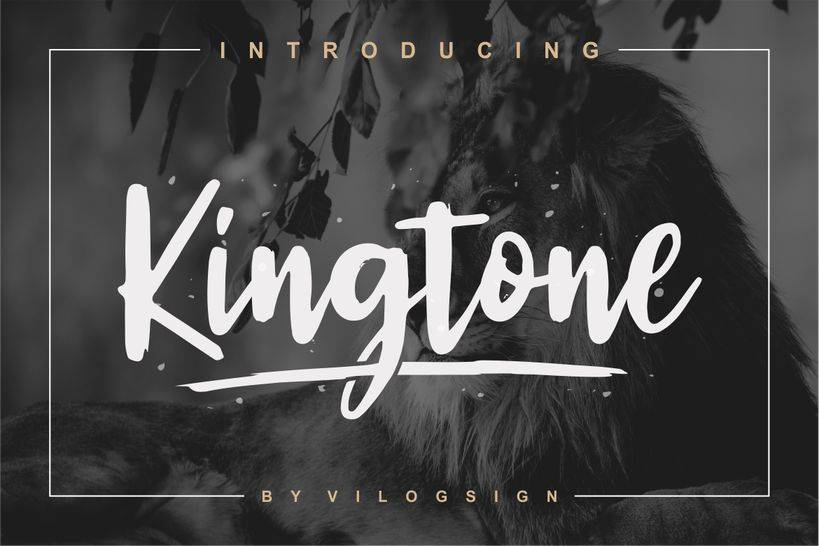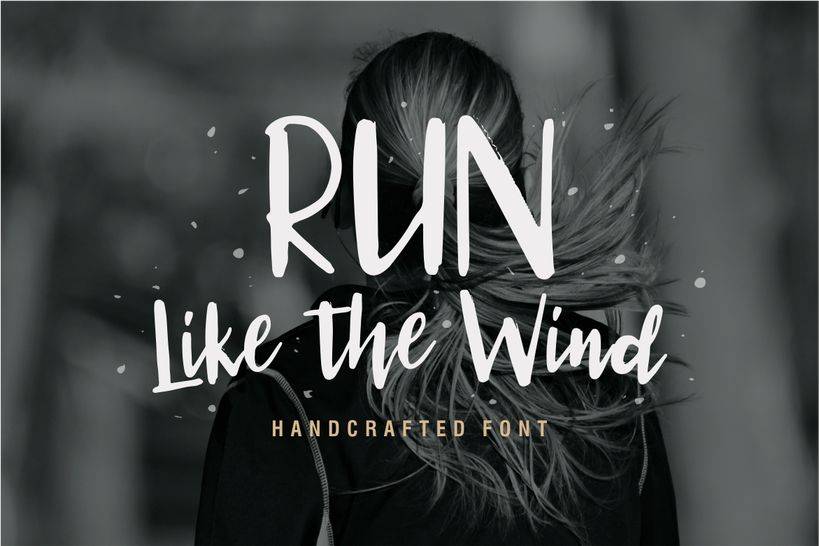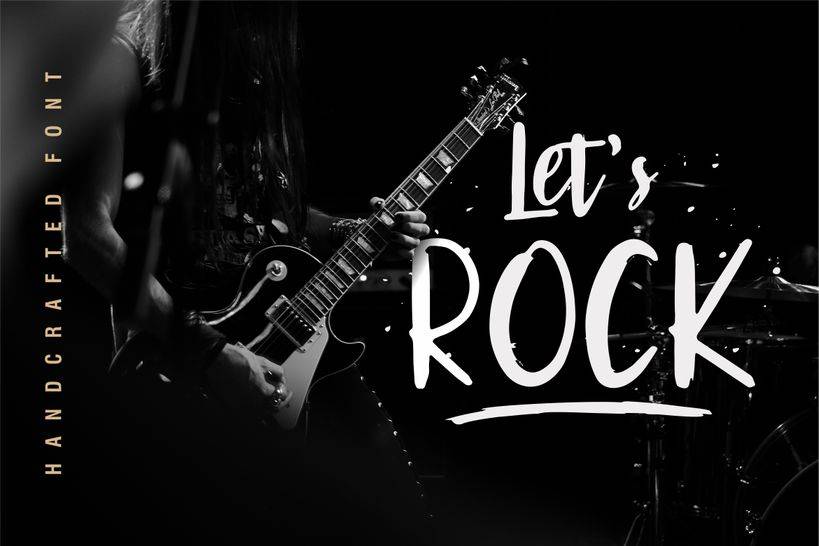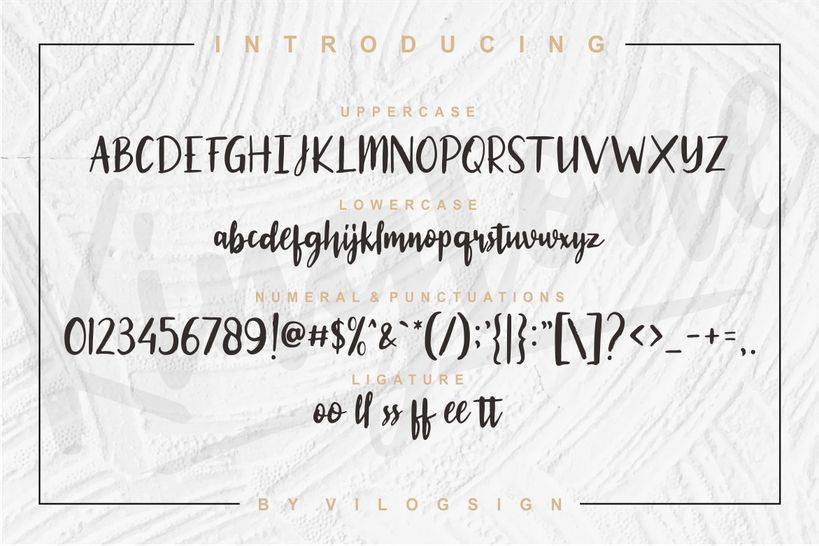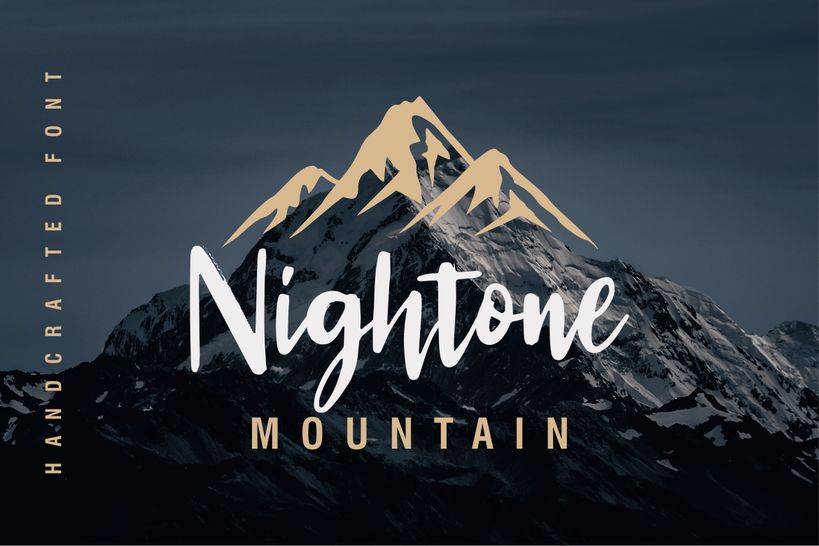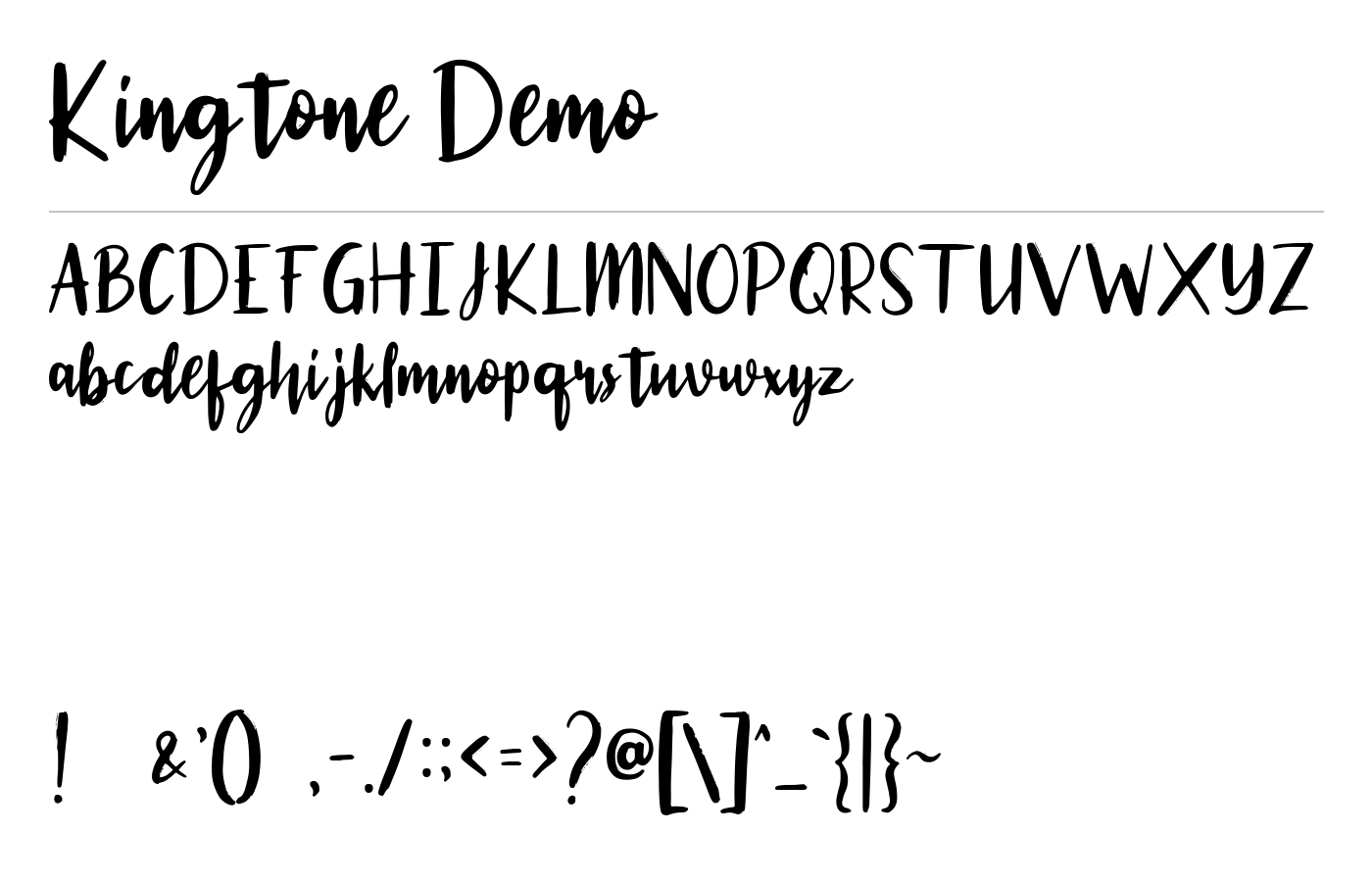
Kingtone is a lively and informal handwritten font with a bold, brushstroke style that gives it a friendly and dynamic feel. Its tall, slightly condensed letterforms with playful irregularities add a personal touch, making it perfect for creative projects, casual branding, and eye-catching headlines that need warmth and personality. This font works well in packaging, posters, and social media where a relaxed yet energetic vibe is desired.
Kingtone Font
About Kingtone Font
| Font family | Kingtone Font |
| Designer | Vilogsign |